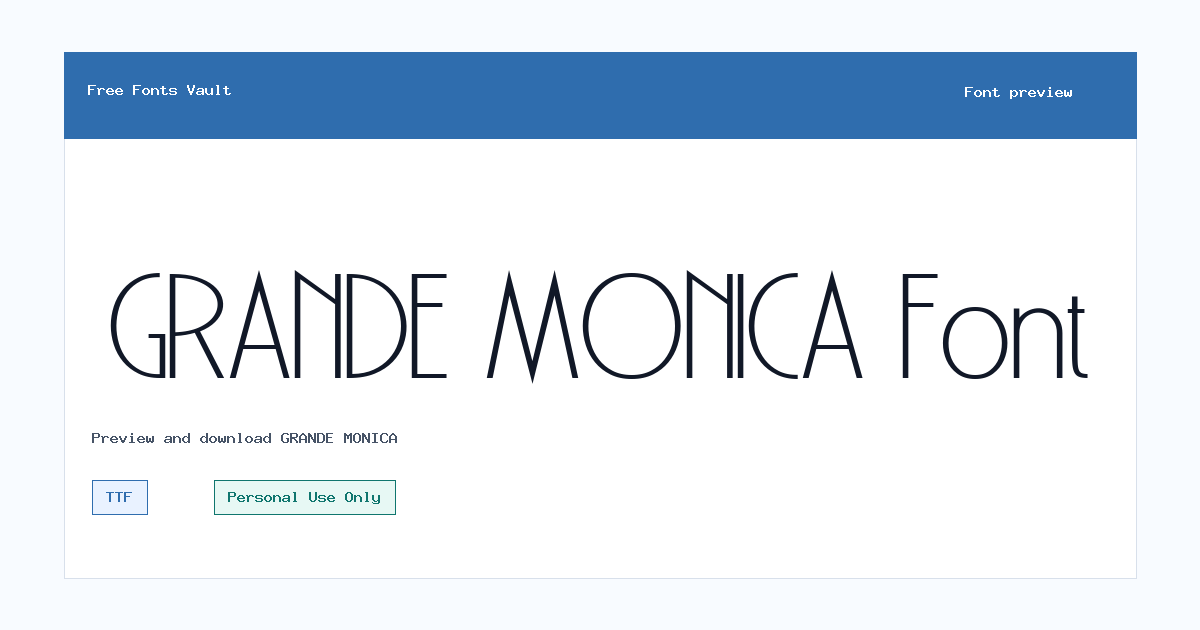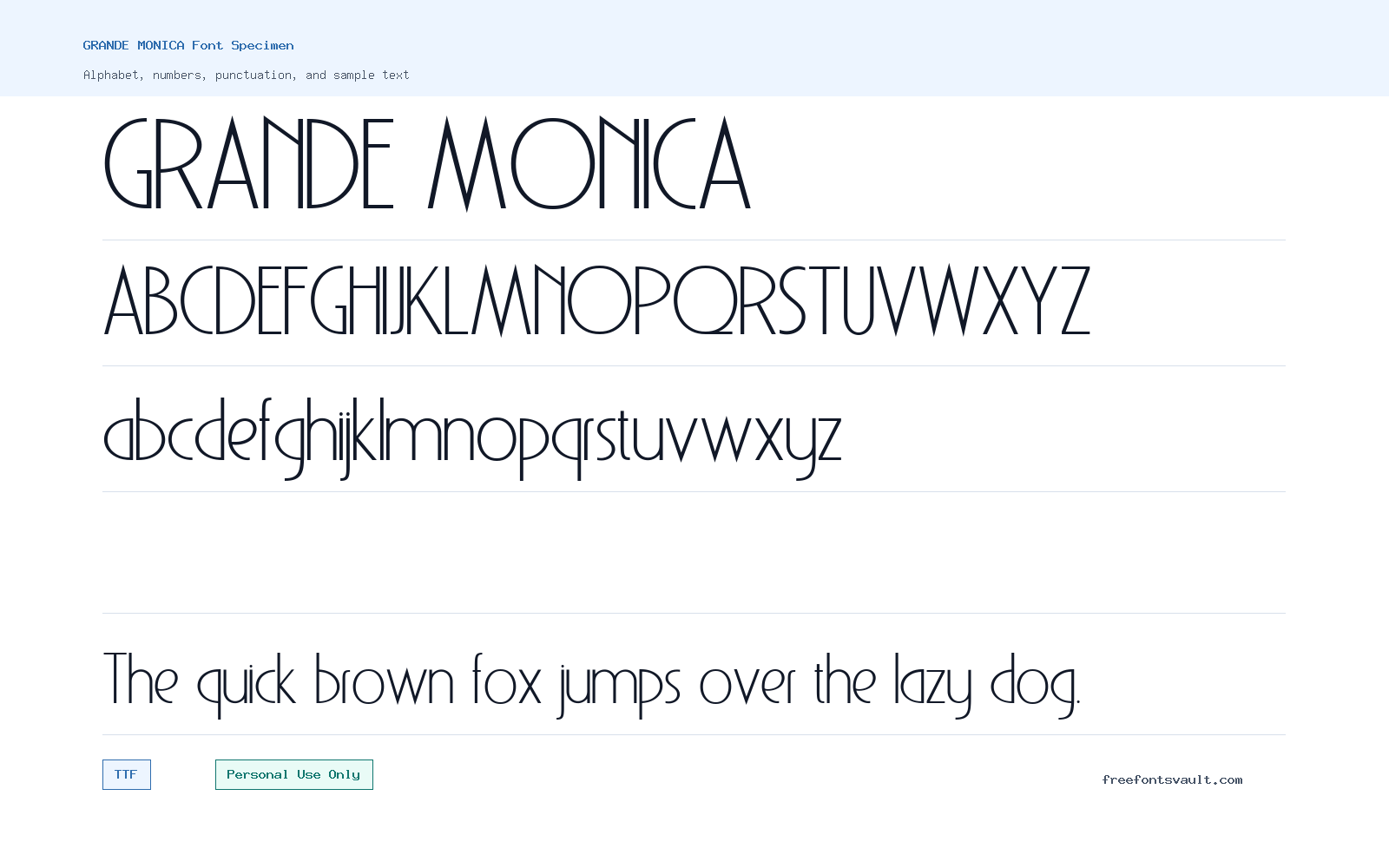
GRANDE MONICA
GRANDE MONICA font.
GRANDE MONICA is a sans serif font with a clean, display-friendly feel, offered as a regular TTF font for personal-use projects.
GRANDE MONICA works best when you need a simple sans serif style that can carry short, prominent text. Because the available file is a regular-weight TrueType font, it is a practical choice for testing headings, nameplates, poster text, social graphics, and logo mockups where the words need to stay clear without relying on extra ornament. Use the preview tool with your own text before downloading, especially if your project depends on specific letters, numbers, or punctuation. Font pages often look different once a real brand name, title, or phrase is typed in, so checking your exact wording is the fastest way to see whether GRANDE MONICA fits the design.
For logo work, try GRANDE MONICA in short names rather than long paragraphs. Sans serif display fonts usually perform best when the spacing, size, and surrounding layout are handled carefully. Test the font in uppercase and title case, then adjust letter spacing if the design tool allows it. For posters and web mockups, pair it with a quieter text font so GRANDE MONICA can stay focused on headings or feature lines. Avoid using it for dense body copy unless your preview shows strong readability at small sizes. Since the listed license is Personal Use Only, it is safest for personal mockups, student work, private previews, and non-commercial experiments unless you obtain permission or a commercial license from the rights holder.
- Sans serif style suited to clean titles, logo drafts, posters, and display text.
- Best suited to short wording where letter shapes and spacing can be checked carefully.
- Simple structure makes it easier to pair with restrained serif or neutral sans serif text fonts.
- Personal logo concepts and brand-name mockups
- Poster headlines and event title drafts
- Website hero text mockups
- Social media graphics for non-commercial projects
- Presentation covers, mood boards, and student design studies
- Short labels, nameplates, and display typography tests
GRANDE MONICA is listed as a sans serif font. The available style is a regular-weight TTF file.
Use GRANDE MONICA for the main title or logo-style text, then pair it with a simple serif or neutral sans serif for body copy. Keep the companion font understated so the display text remains the focus.
It is better to test it first. The font is most practical for short display uses such as titles, posters, mockups, and logos. For long paragraphs, a dedicated reading font is usually safer.